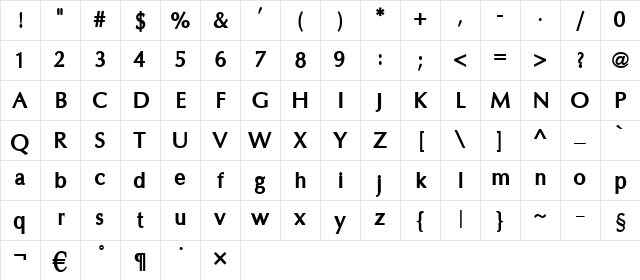
GIST-TMOTPadma Bold
Design Context for GIST-TMOTPadma
GIST-TMOTPadma is a composed and adaptable typeface that performs quietly and consistently across a wide range of design contexts. Its bold stroke weight gives it real presence on the page.
Pro Tip: Use GIST-TMOTPadma in both headline and body roles to test its range before committing to a single application.